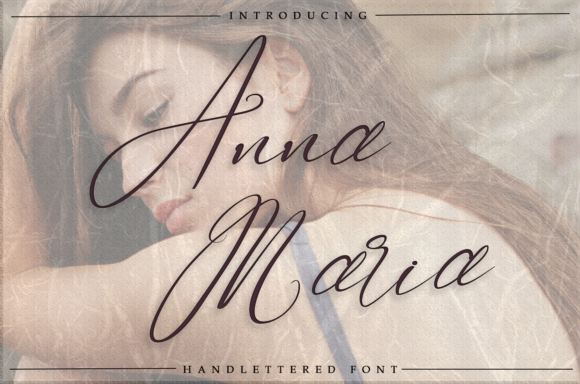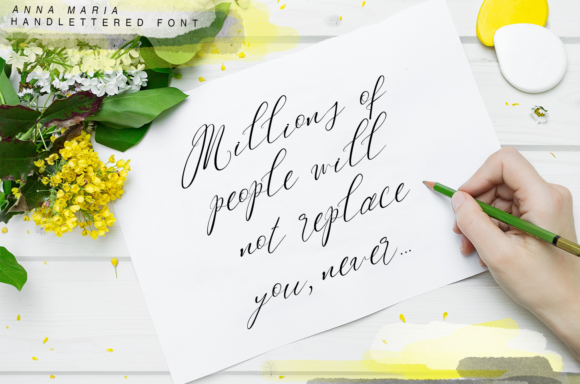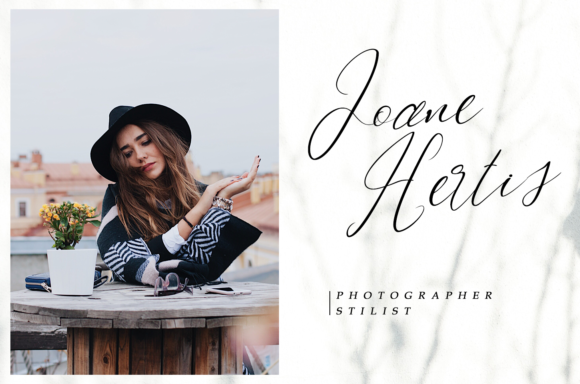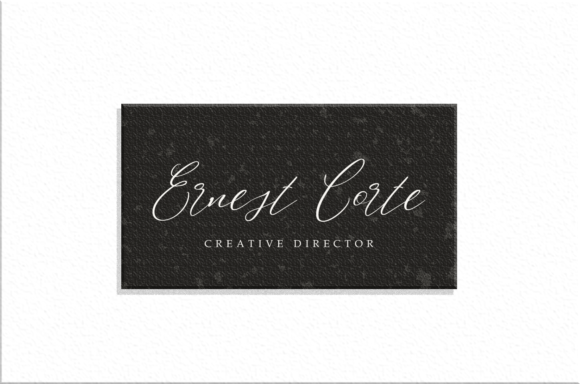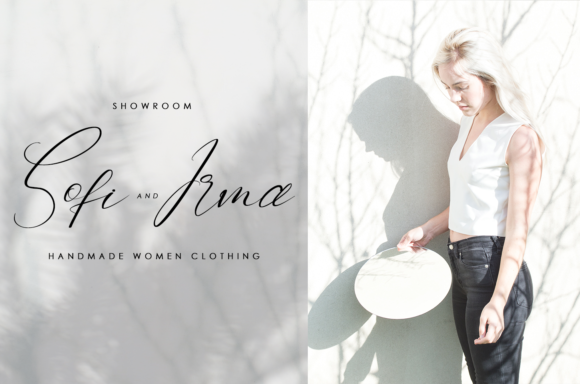
HomeScript FontsAnna Maria Font Script Fonts Anna Maria Font FacebookXPinterestWhatsApp Anna Maria Font Poster 2 Anna Maria Font Poster 3 Anna Maria Font Poster 4 Anna Maria Font Poster 5 Anna Maria Font Poster 6 About Anna Maria Font Anna Maria feels elegant, romantic and charming. Ignite your creativity with this gorgeous script! DOWNLOAD ON CREATIVE FABRICAThis font is sold and delivered by Creative Fabrica. Font Canyon may earn a commission if you buy through this link. People also explored Blanchope Font Little Dolphins Font Ellyshalira Font Green Triblend Bella Canvas 8413 Mockup Austacopi Font Daisy Font Block Font Kionsa Font And then Font 365 0 TagsAnna Maria Font Previous articleDarling FontNext articleDinky Venice Font LEAVE A REPLY Cancel reply Comment: Please enter your comment! Name:* Please enter your name here Email:* You have entered an incorrect email address! Please enter your email address here Website: Save my name, email, and website in this browser for the next time I comment. Personal Use Free Ailand Personal Use Free Read more about this font The Fourth Avenue Personal Use Free Read more about this font BD Medled Personal Use Free Read more about this font Bridgetown Font Personal Use Free Read more about this font BLOG How to Install and Use Fonts on Windows, macOS, and Web Projects How to Install and Use Fonts on Windows, macOS, and Web Projects Fonts are a crucial part of design and branding. Whether you’re designing a... The 10 Best Handwriting Fonts to Add Personality to Your Designs Top 7 Google Fonts Alternatives for Faster and Privacy-Friendly Web Design (2025) Using Fonts in Digital Marketing: Tips to Strengthen Your Brand Identity